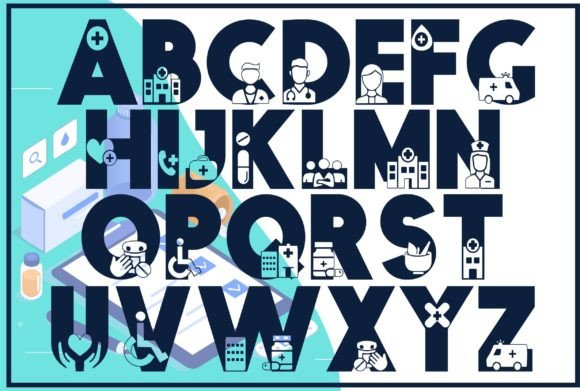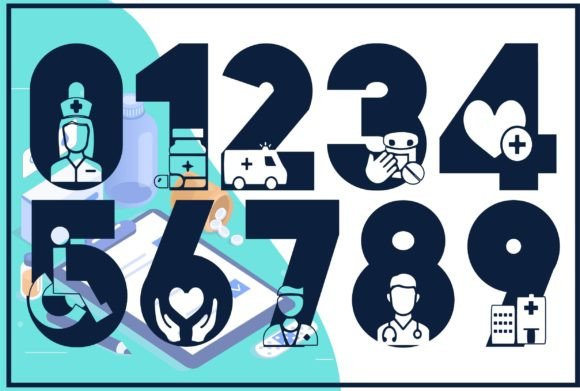
Introducing Doctor and Nurse Font: The Ultimate Decorative Font for Healthcare Designs
Are you a designer or crafter looking for a unique and eye-catching font to elevate your healthcare-related designs? Look no further than the Doctor and Nurse Font! This thick lettered and incredibly unique decorative font is specifically designed to capture the essence of doctors, nurses, and healthcare staff in general. In this article, we’ll dive into the features, benefits, and uses of the Doctor and Nurse Font, and explore how it can take your designs to the next level.
What is Doctor and Nurse Font?
Doctor and Nurse Font is a distinctive and bold decorative font that exudes professionalism and care. Its thick lettering and unique design make it stand out from traditional fonts, perfect for creating eye-catching designs that demand attention. The font’s style is reminiscent of the medical industry, making it an ideal choice for designs related to healthcare, medicine, and wellness.
Key Features of Doctor and Nurse Font
- Thick Lettering: The font’s thick lettering ensures that your designs are bold, clear, and easy to read, even from a distance.
- Unique Design: The Doctor and Nurse Font boasts a one-of-a-kind design that sets it apart from other decorative fonts.
- High Versatility: The font can be used for a wide range of design ideas, from logos and posters to brochures and social media graphics.
Benefits of Using Doctor and Nurse Font
So, why choose the Doctor and Nurse Font for your designs? Here are just a few benefits:
- Instant Recognition: The font’s medical theme and bold design ensure that your designs are instantly recognizable as related to healthcare.
- Professional Look: The font’s thick lettering and unique design give your designs a professional and polished look.
- Time-Saving: With the Doctor and Nurse Font, you can create high-quality designs in no time, thanks to its ease of use and versatility.
Design Ideas Using Doctor and Nurse Font
The Doctor and Nurse Font is perfect for a wide range of design ideas, including:
- Logos: Create a memorable logo for your healthcare business or organization.
- Posters: Design eye-catching posters for healthcare events, conferences, or awareness campaigns.
- Brochures: Create informative and engaging brochures for healthcare services or medical products.
- Social Media Graphics: Use the font to create engaging social media graphics for healthcare-related businesses or organizations.
Tips for Using Doctor and Nurse Font
To get the most out of the Doctor and Nurse Font, here are some tips:
- Pair with Other Fonts: Experiment with pairing the Doctor and Nurse Font with other fonts to create a unique and visually appealing design.
- Use Contrasting Colors: Use contrasting colors to make your designs stand out and ensure the font is easy to read.
- Experiment with Sizes: Play around with different font sizes to create visual hierarchy and emphasis in your designs.
In conclusion, the Doctor and Nurse Font is an exceptional decorative font that can elevate your healthcare-related designs. Its unique design, thick lettering, and high versatility make it an ideal choice for designers and crafters looking to create eye-catching and professional designs. With its ease of use and compatibility with most design software, you can create stunning designs in no time. So why wait? Get creative with the Doctor and Nurse Font today and take your designs to the next level!